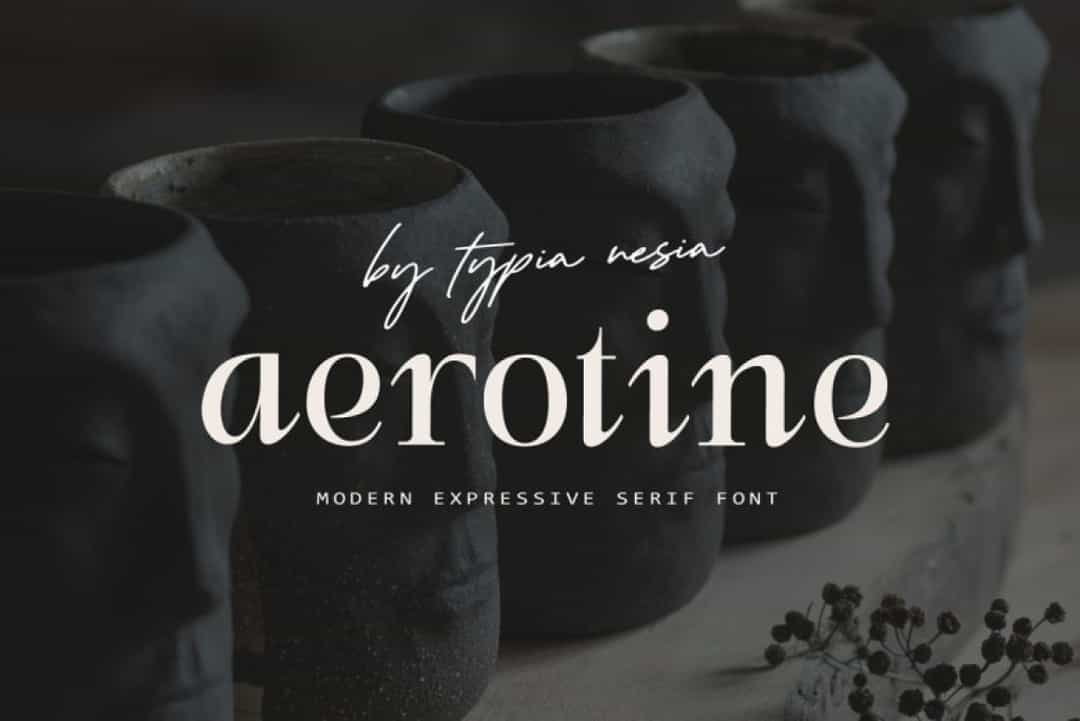
Aerotine Serif is a font with Ligatures, so you can combine its characters to produce stunning typographic styles. Aerotine Serif makes for the ideal font choice when creating luxury logos and branding projects, sophisticated editorial designs for women’s magazines or cosmetic brands, fashion related promotional branding of museums or architecture as well as boutique branding design for stationery blog modern designs for advertising cards invitations art quotes interior decor book cover titles special occasions or other projects requiring modern design aesthetics. It makes the ideal font choice.